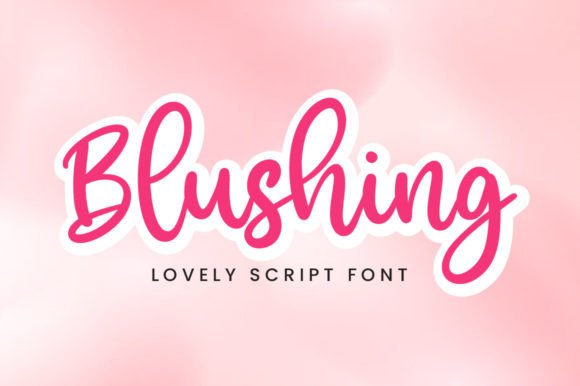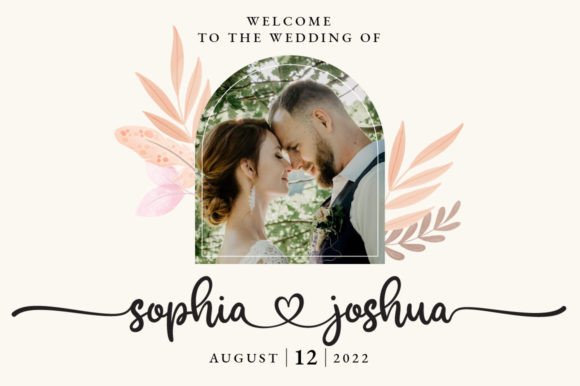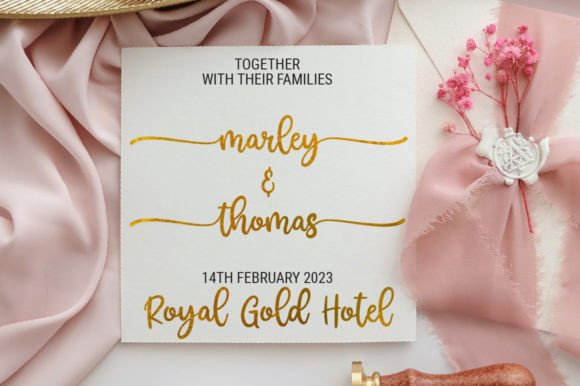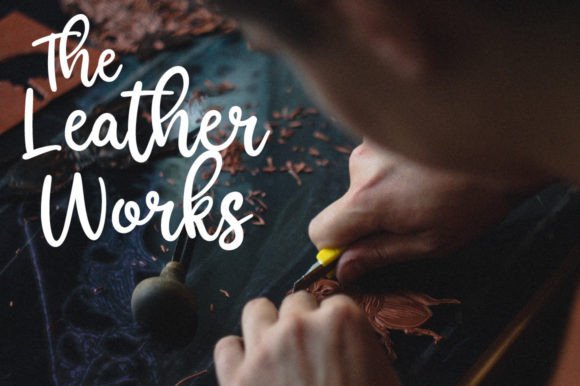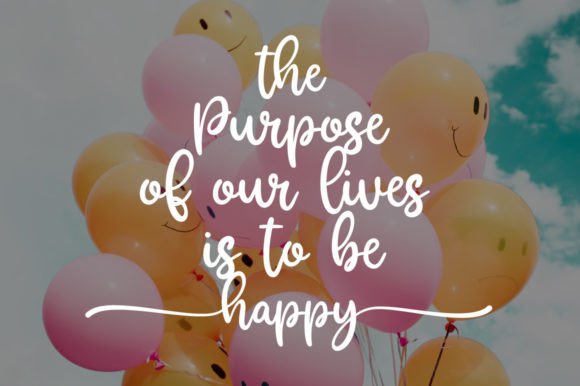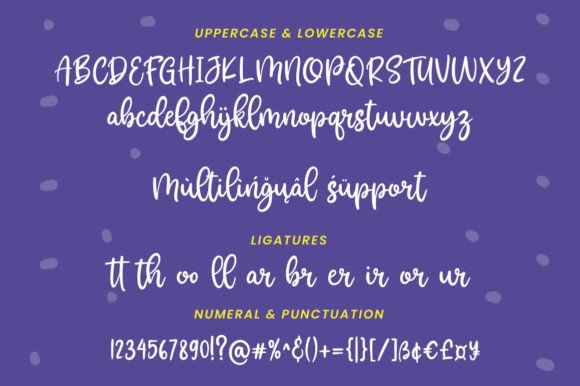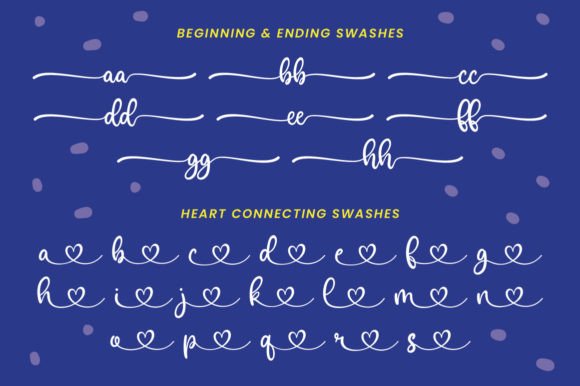
Blushing Font
About Blushing Font
Blushing is a fun but also elegant brush handwritten font. Blushing is perfect for logos, wedding stationery, cards, gift designs, photography, watermark, product packaging, and handwritten quotes. This font is PUA encoded, which means you can access all of the glyphs and swashes with ease!